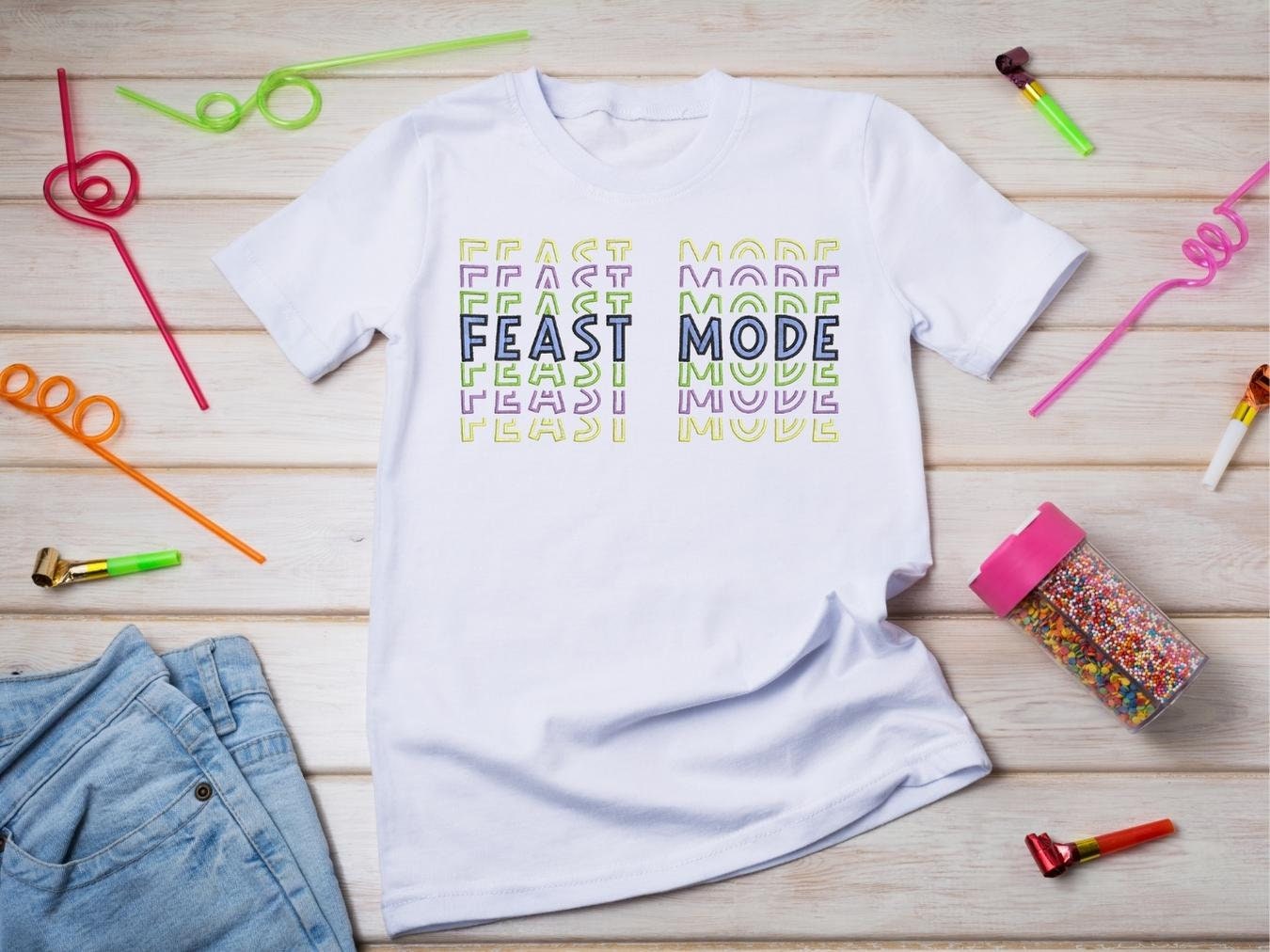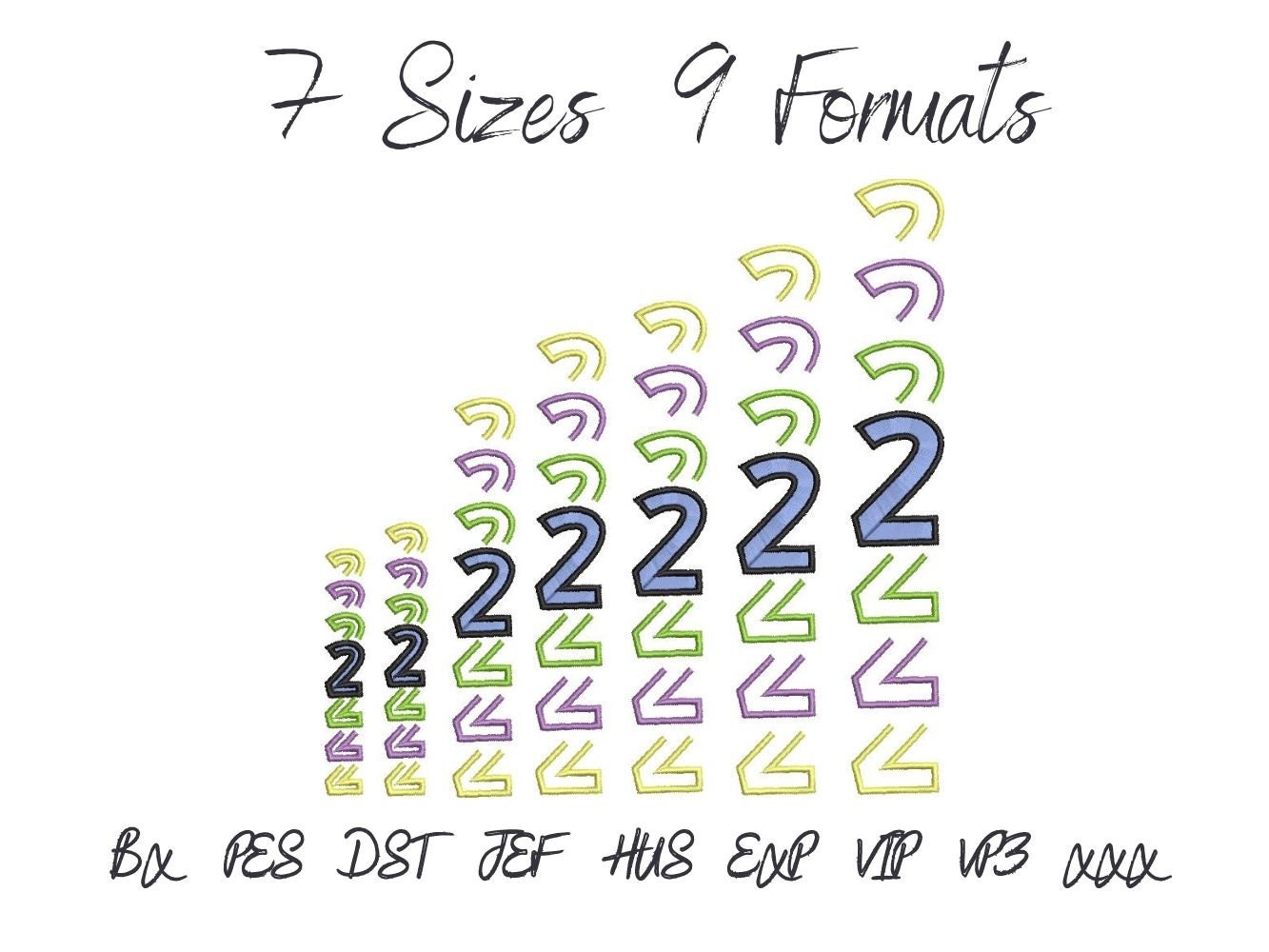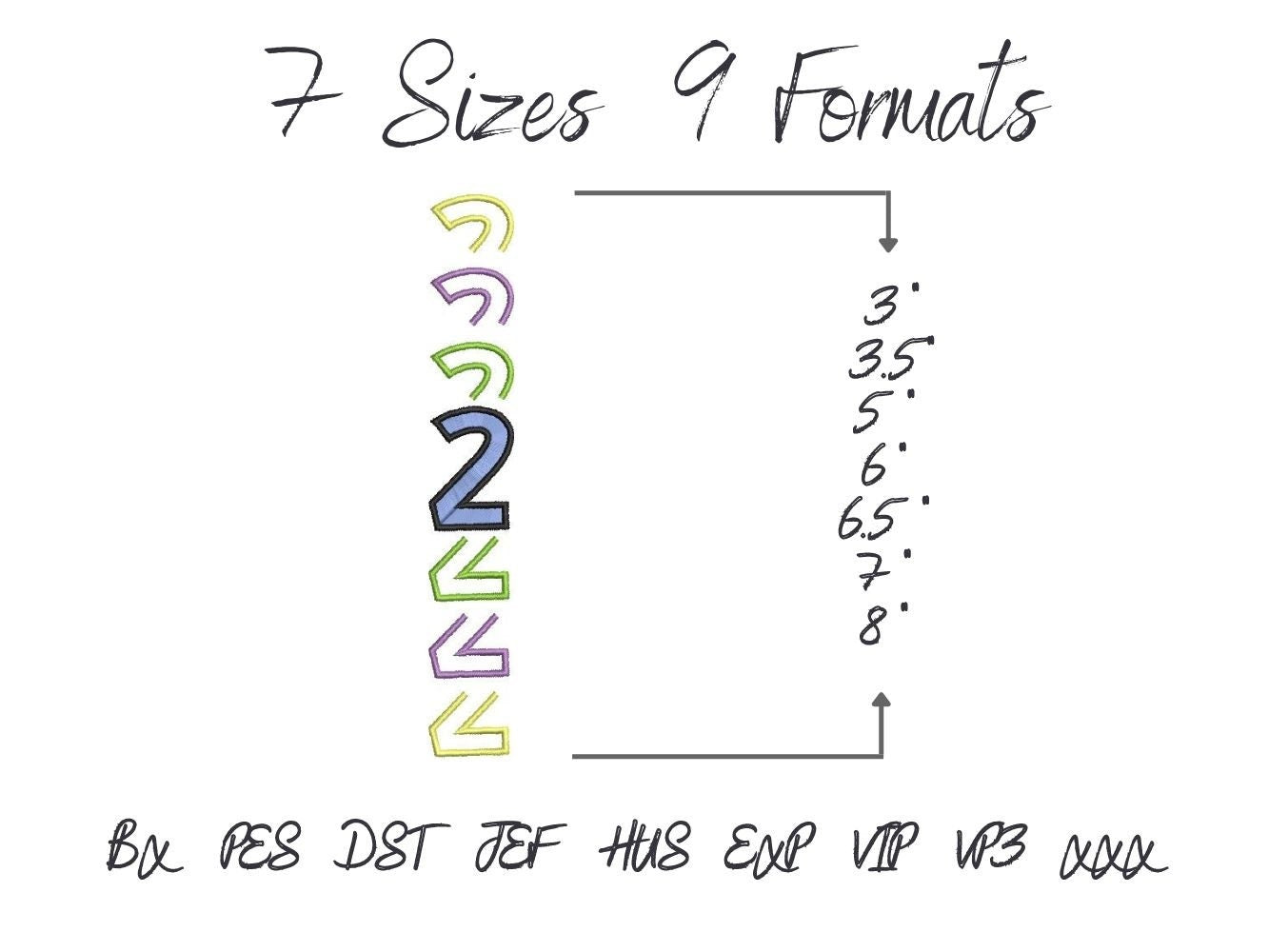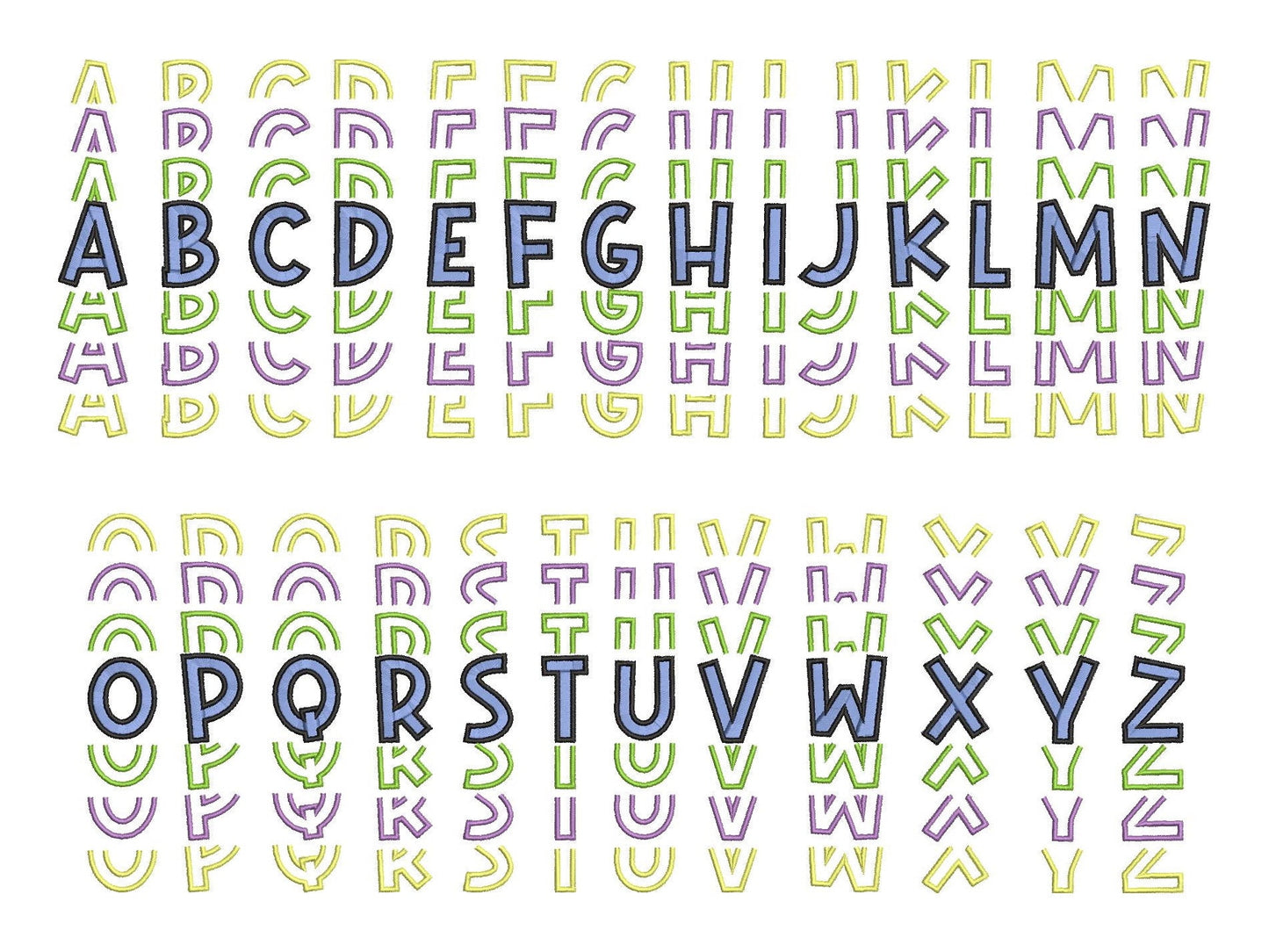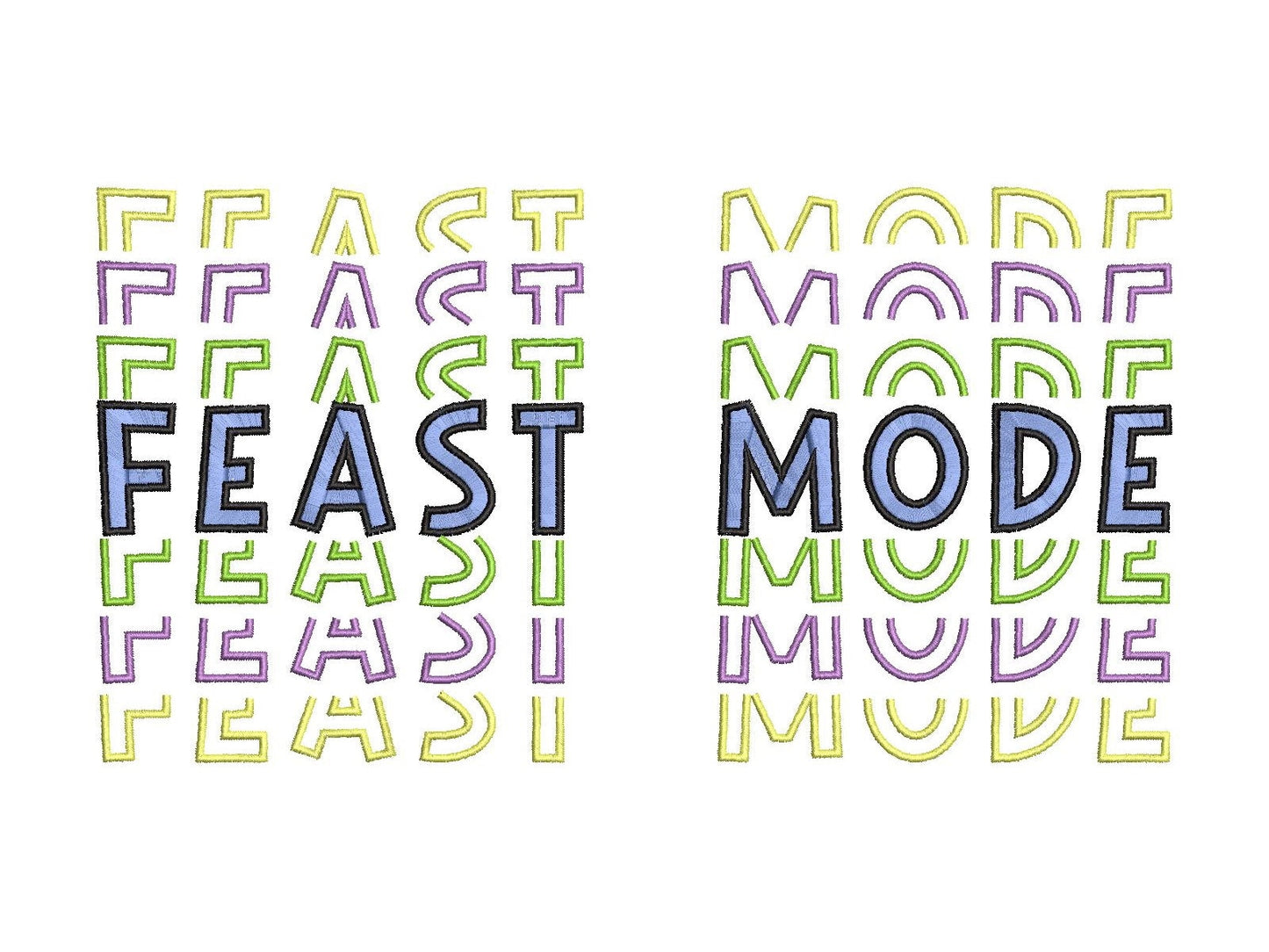
Stacked Satin Stitch and Outline Font
Or click to open the linkA big stacked font in satin stitch with an outline. Trendy for kids' T-shirts, sweatshirts and statement outfits.
Uppercase letters A to Z, numbers 0 to 9, an ampersand and a slash, in seven sizes: 3, 3.5, 5, 6, 6.5, 7 and 8 inches.
- Stacked satin and outline font
- Uppercase A-Z, numbers 0-9, & /
- 7 sizes, 3 to 8 in